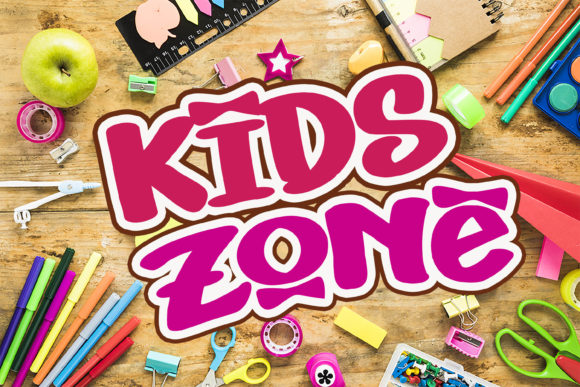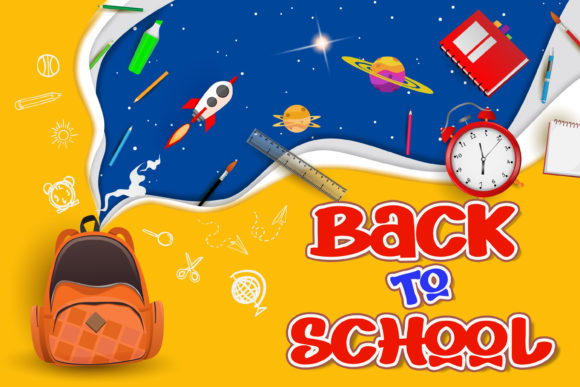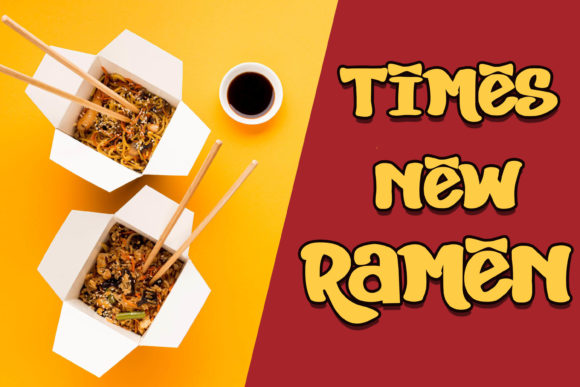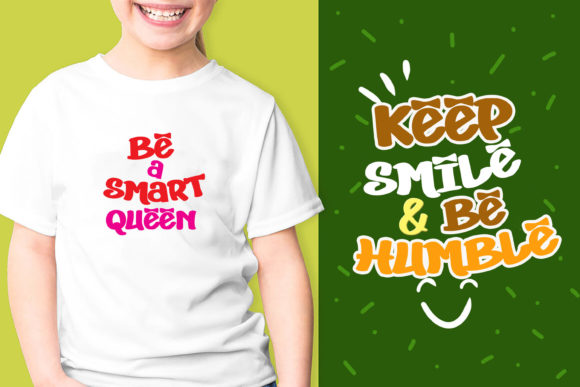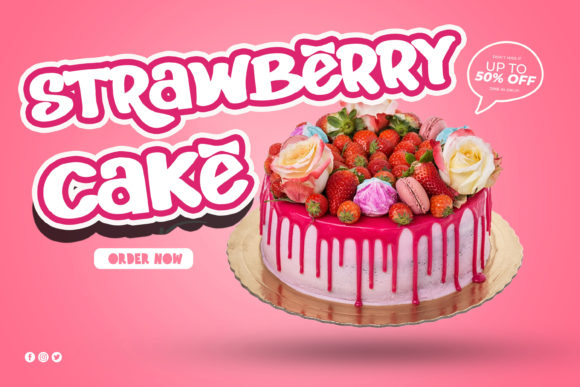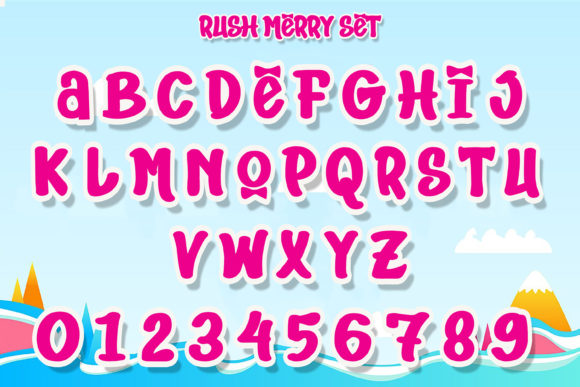
Introduction to Rich Berry Font
Rich Berry is a chunky lettered display font that will make your designs look modern, unique and fun.
It’s perfect for labels, quotes, posters, DIY projects, branding, packaging, greeting cards, websites, photography overlays, signs, window art, scrapbooking, tags and so much more .